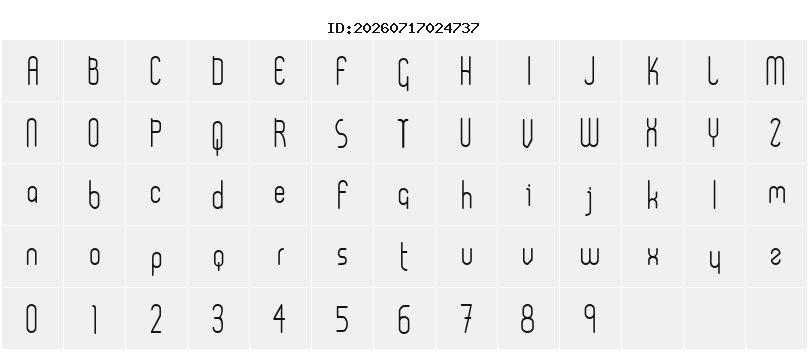
AB UltraChic Preview
About AB UltraChic.ttf
AB UltraChic.ttf is a modern, elegant sans-serif font designed for ultimate readability and visual harmony. Perfect for branding, headlines, web design, and print materials.